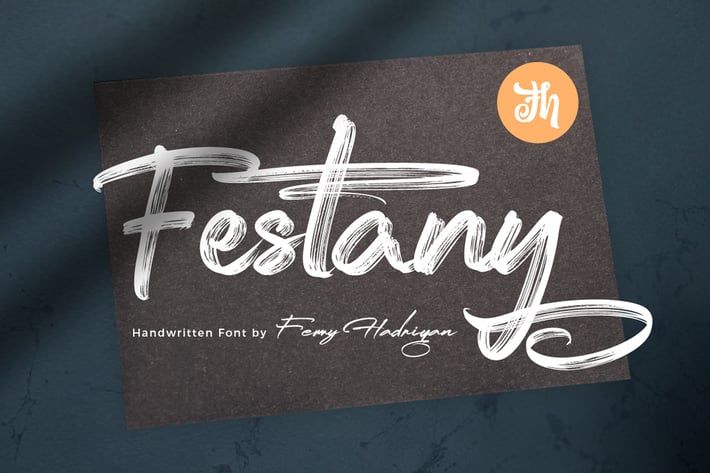
Festany - Handwritten Font
Festany is script font with handlettering brush style, with opentype feature include of the font. Suitable for design, element design, wedding, event, t-shirt, logo, badges, sticker, and awesome work, etc...
- All Standard Character, Symbol, Multilanguage, Ligature, Stylistic Set, and Swashes.
- Unique style fonts